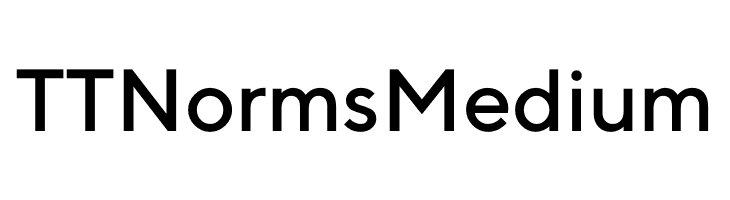
A modern, geometric sans-serif font with clean lines and balanced proportions.
A modern, clean sans-serif font with excellent readability and geometric design.